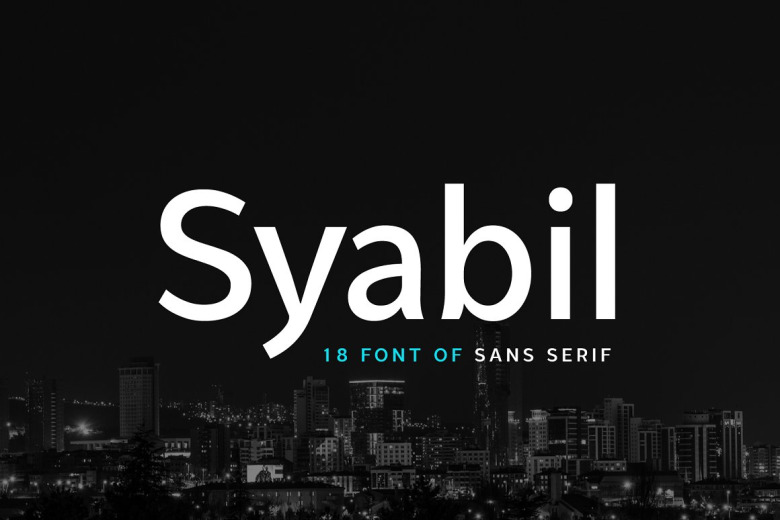
Syabil Font Family
Syabil Font
A new sans serif font, you will probably love it. Introducing Syabil Font Family! Syabil designed by Eko Bimantara. This font crafted with the intention to present a clean, legible, multipurpose that easy to read wether it on screen or print. Fit for all purposes; Text, display, headline, print, corporate identity, logo, branding, product, infographic, photography and other application and medium.
This font consist of 9 weight; Thin, Light, Book, Regular, Medium, SemiBold, Bold, ExtraBold and Heavy with each weight paired by italic. Also including Latin Plus language support with more than 11.700 glyphs in all weight.
Syabil Sans Serif Font Family